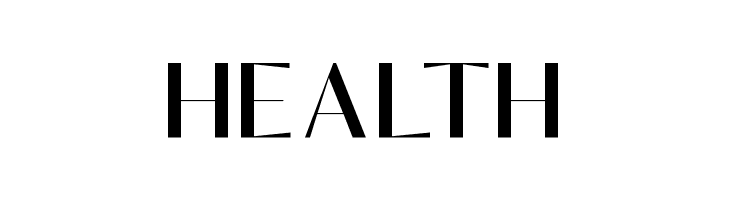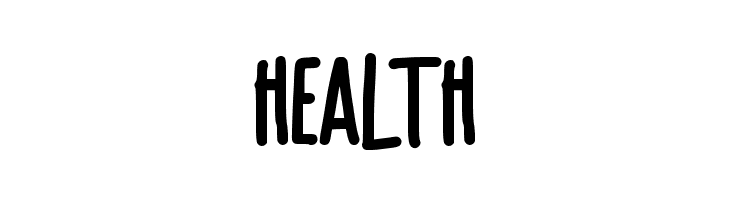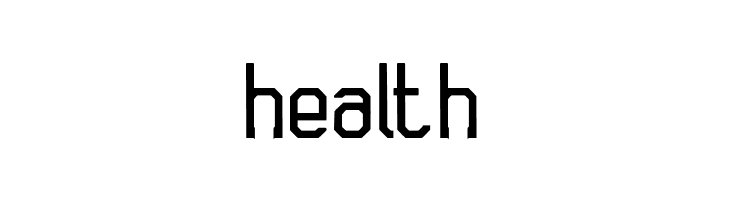
A modern, high-contrast font with elegant and sophisticated styling.
A bold, playful handwritten font with a casual and energetic style.
A decorative font with spiky, starburst-like extensions for a dramatic effect.
A bold, geometric font with a pixelated, retro digital style.
A bold, geometric font with a modern and impactful design.
A bold, pixelated font with a retro, digital aesthetic.
A playful, hand-drawn font with bold, rounded characters ideal for comic-style projects.
A bold, playful handwritten font with unique curls and loops.
A tall, narrow font with a modern, geometric style.